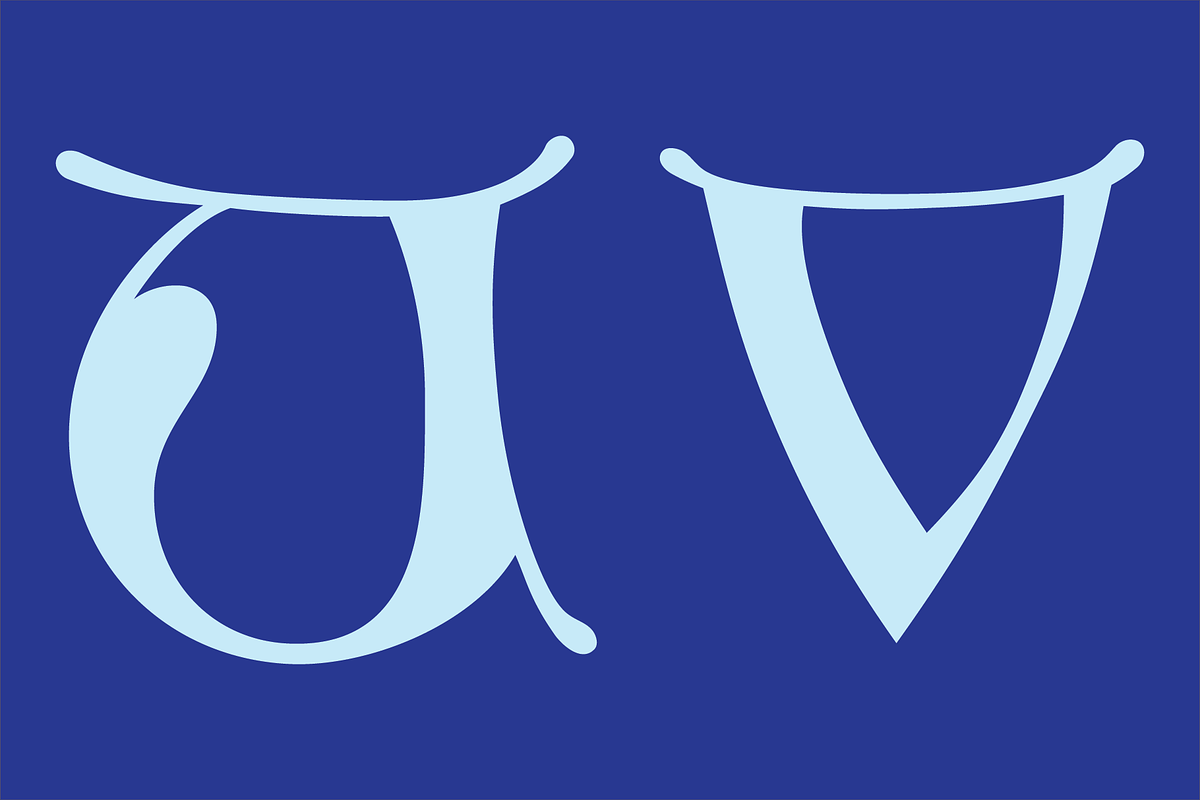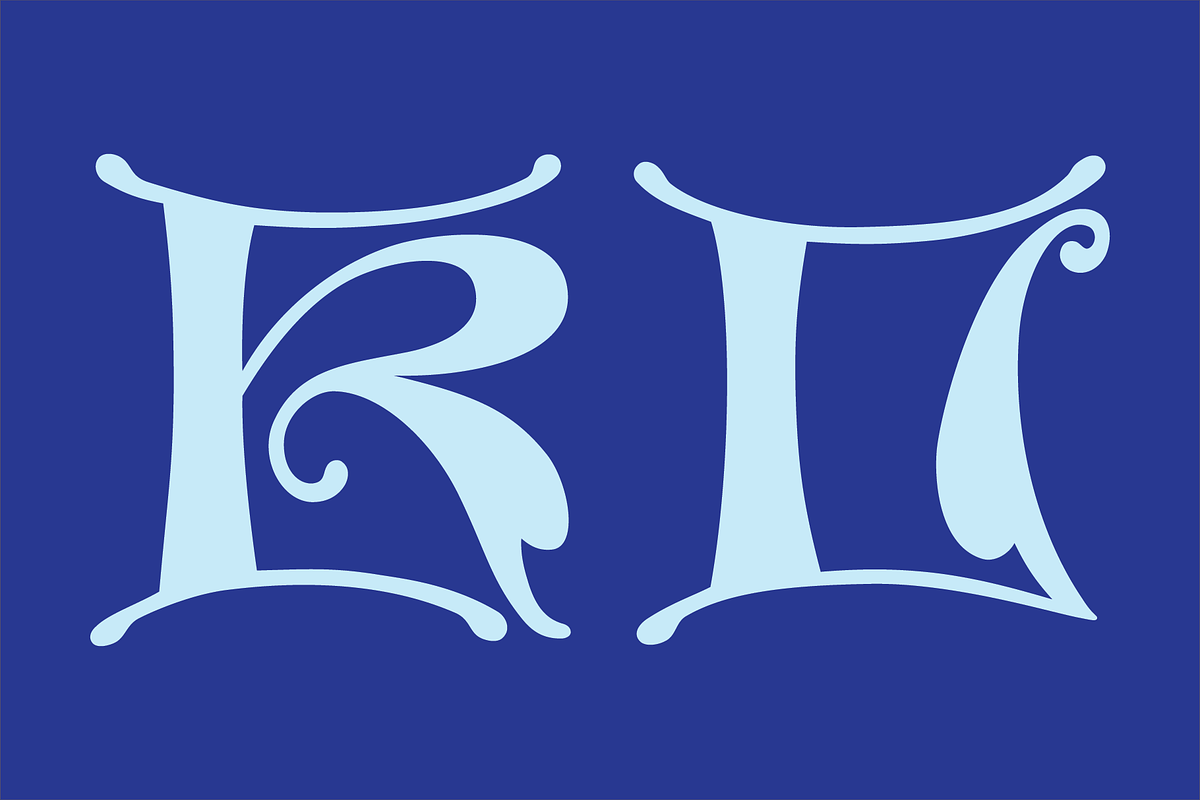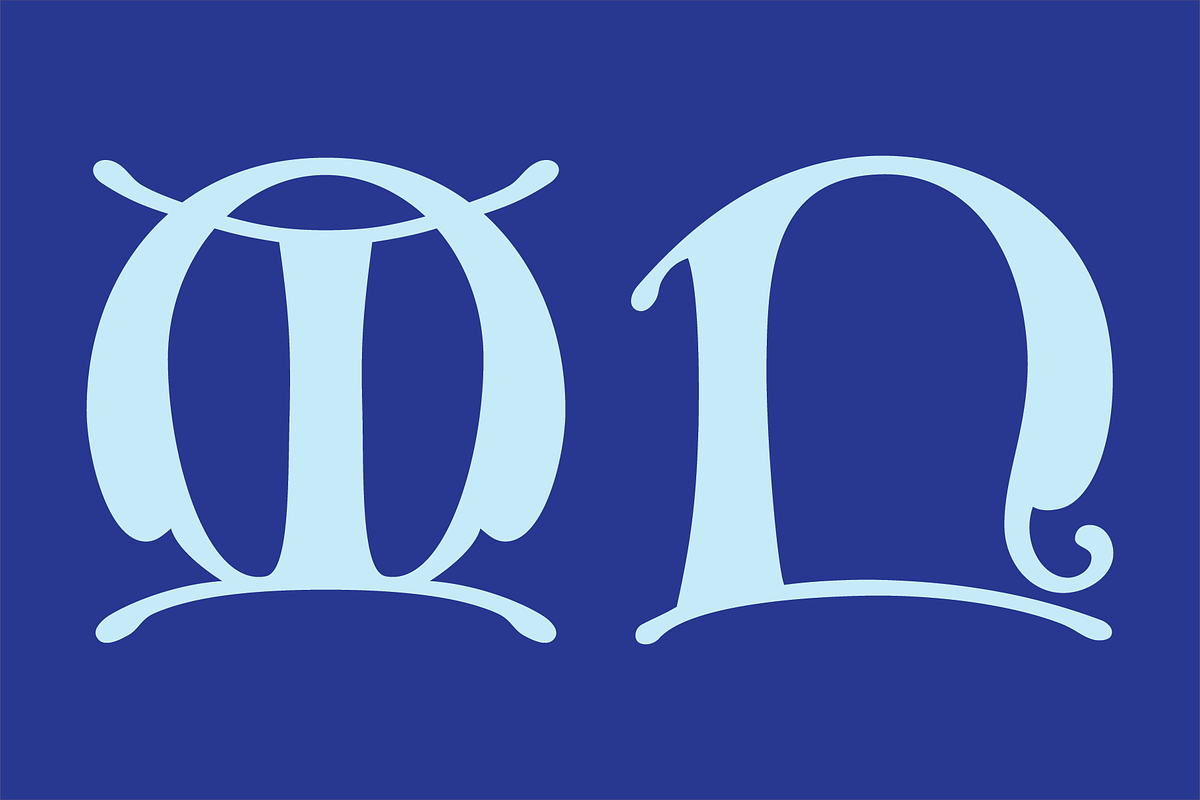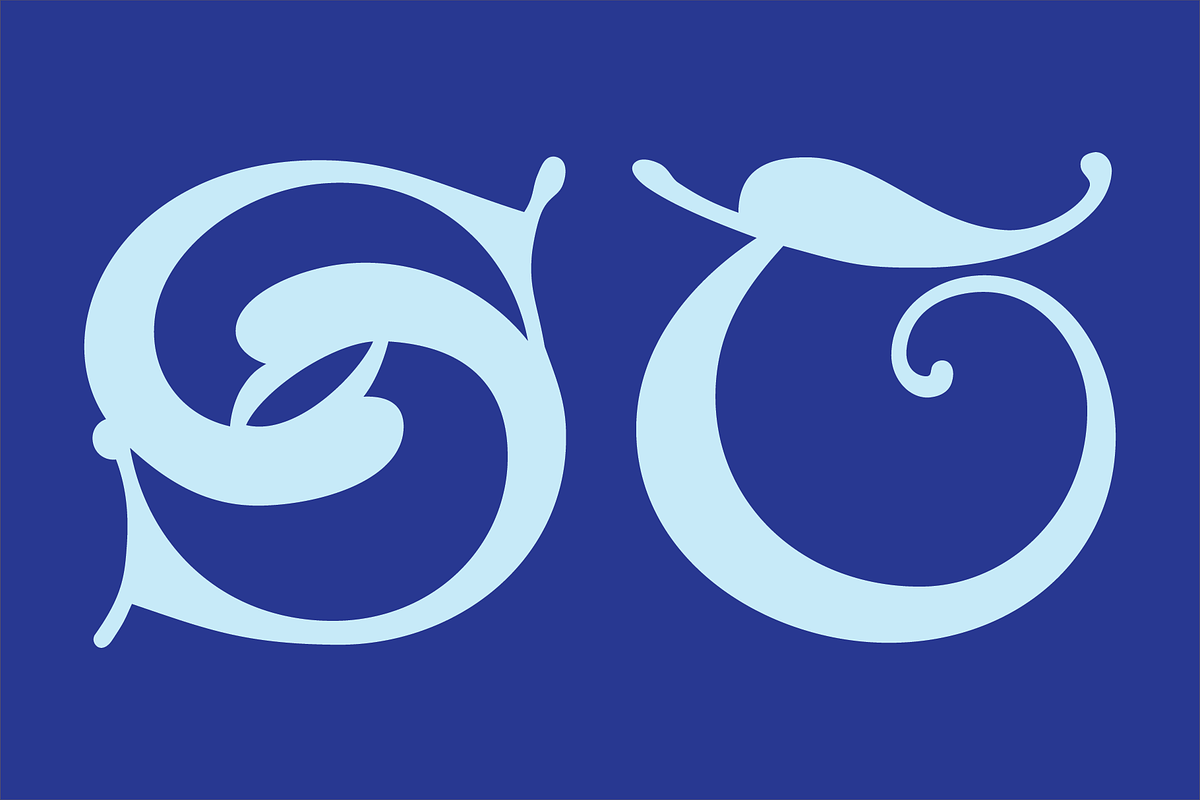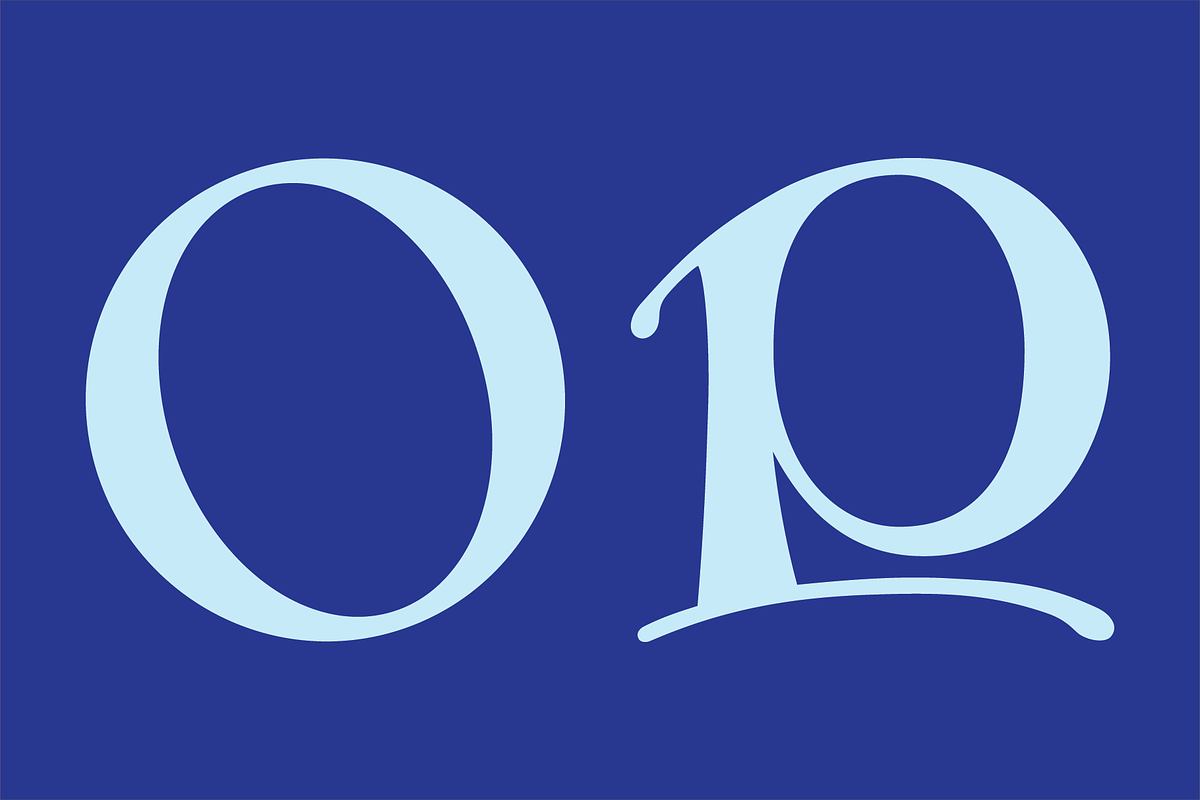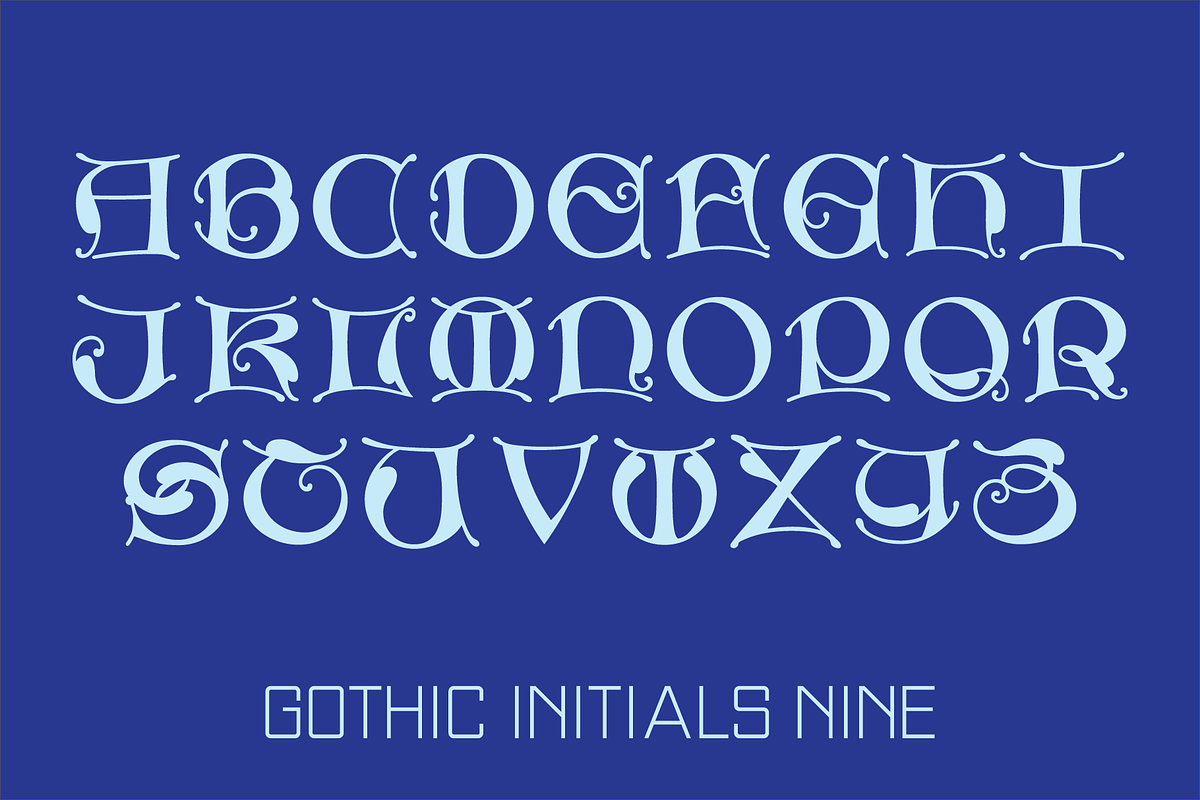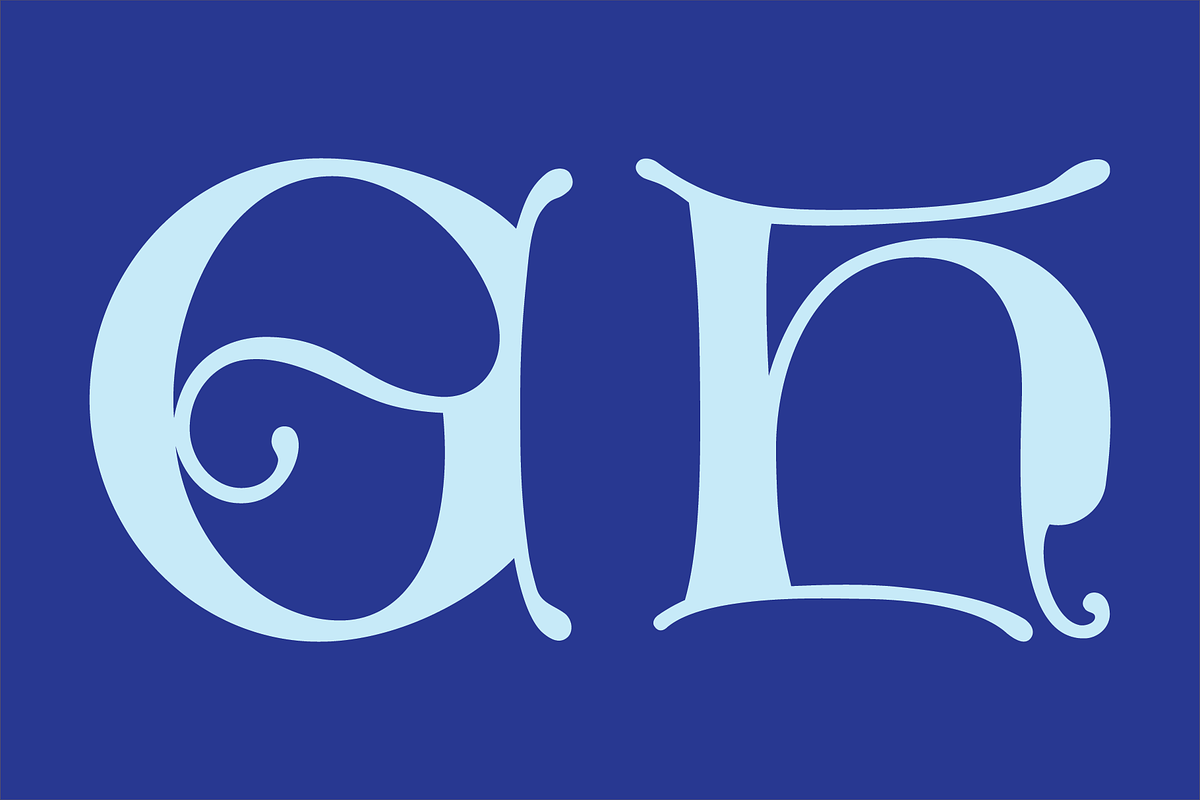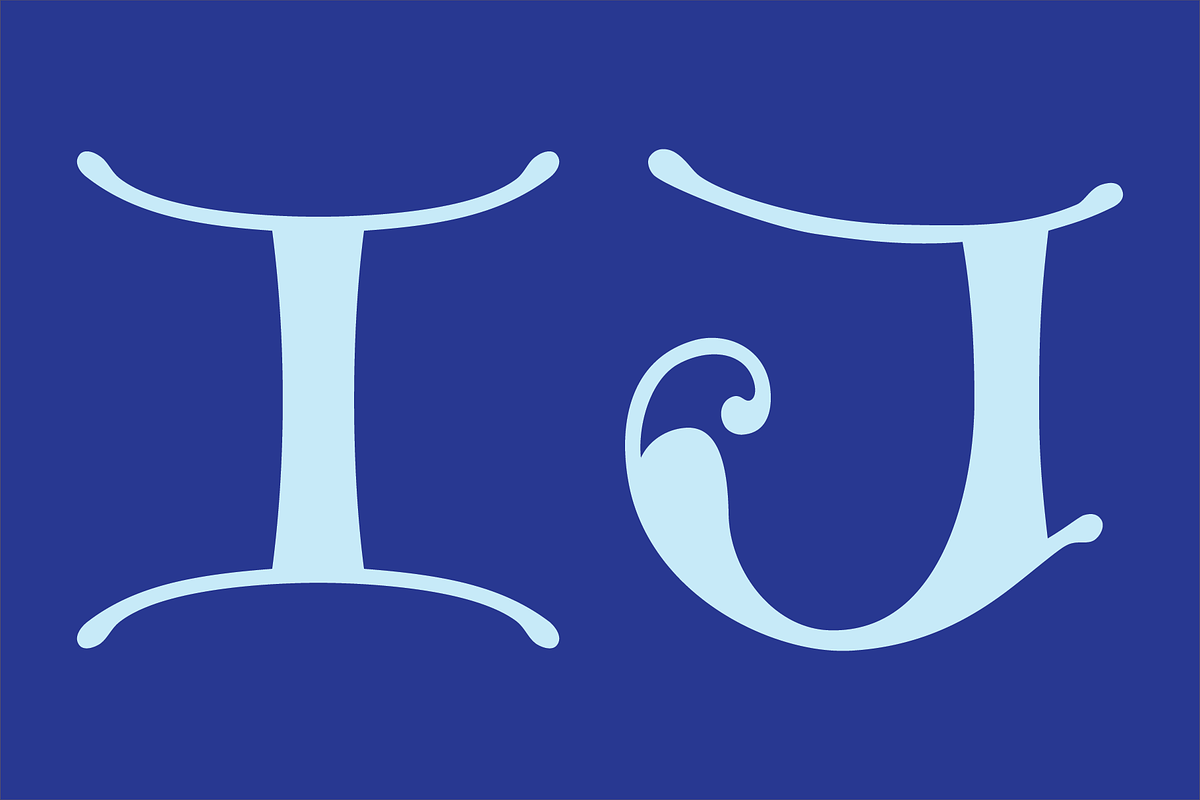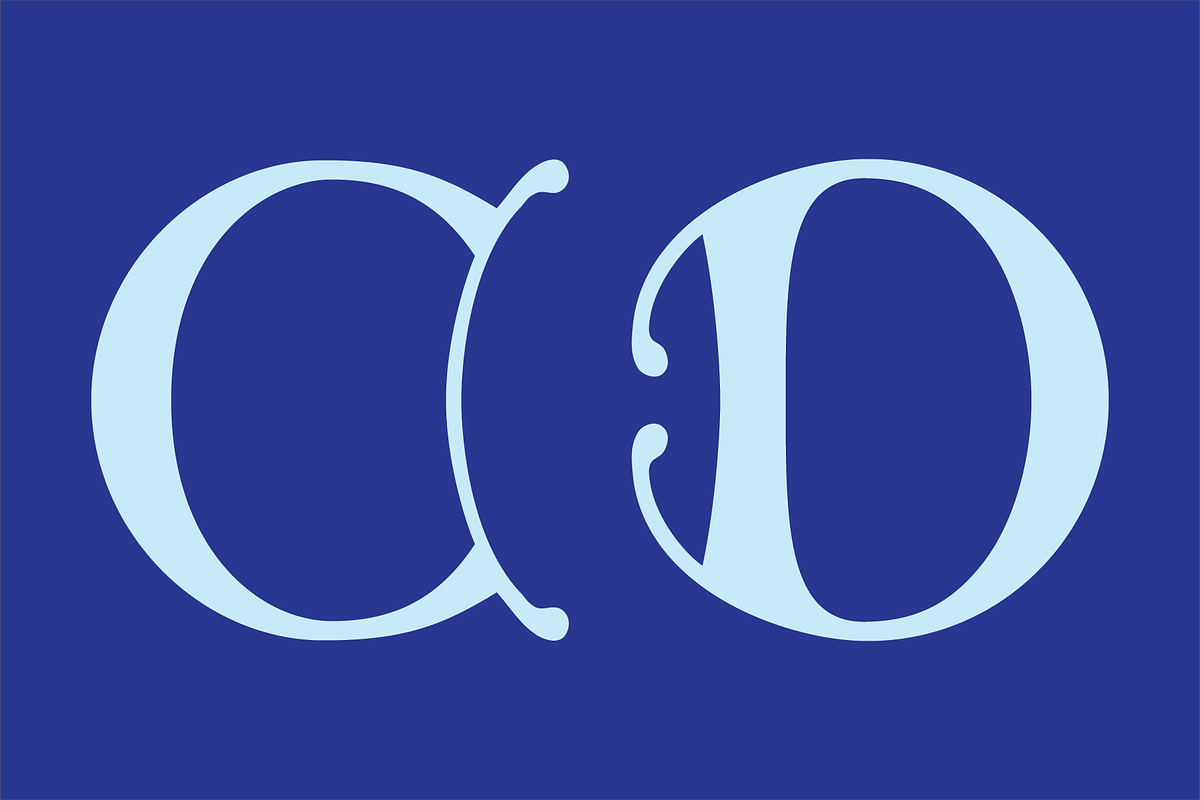
Gothic Initials Nine Font
The Gothic Initials Nine was inspired by the beautifully-written gothic scripts of medieval scribes. The font contains the uppercase letters A through Z located under both the character set and shift+character set keys. The font is intended for use as initials, monograms, drop caps or wherever fancy letters are desirable.